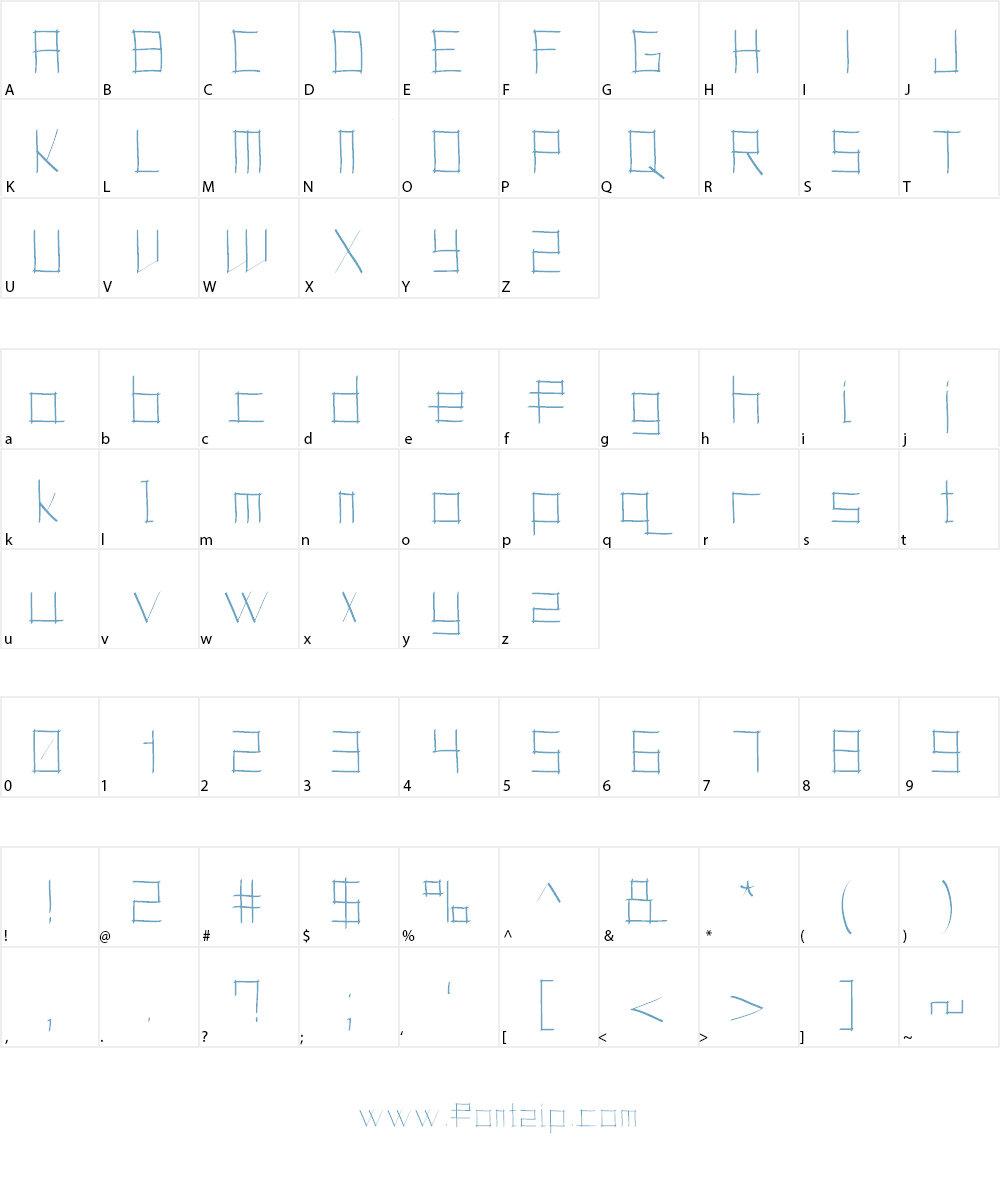
Toranaga font is a sketch type made out of sticks with a old japan writing flavor that can be used to give an eastern aesthetic writing to your designs. It was inspired by James Clavell's Shogun book.